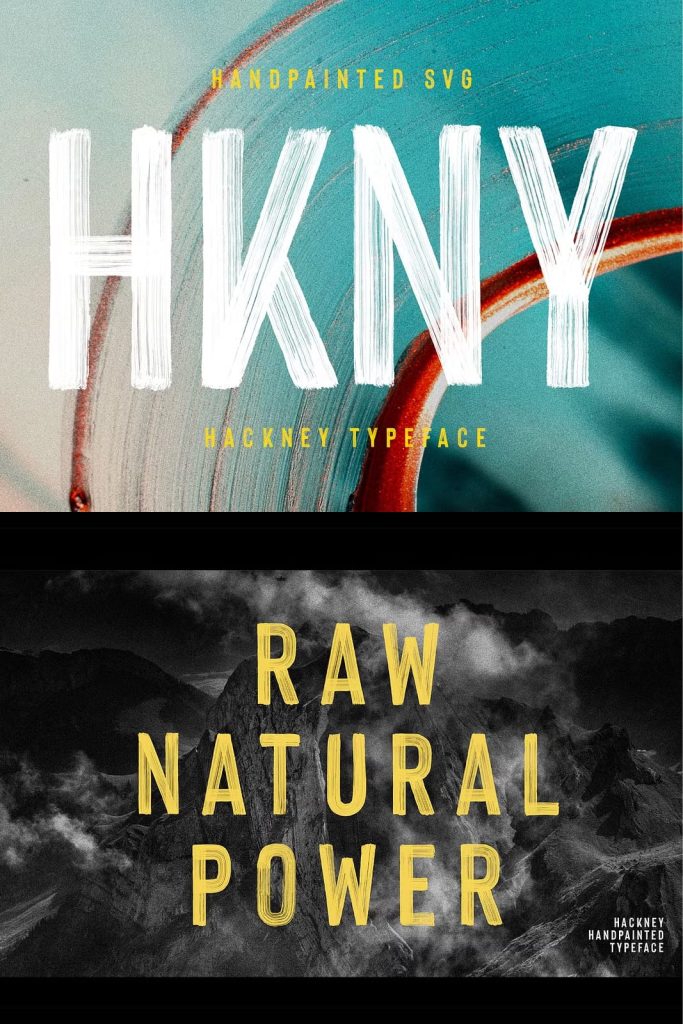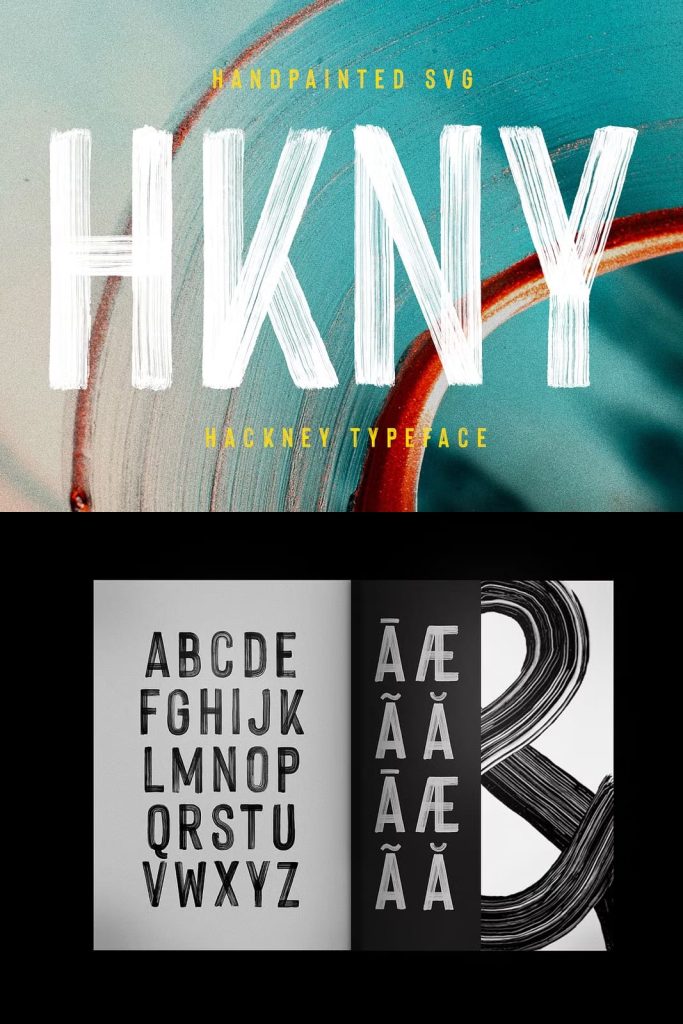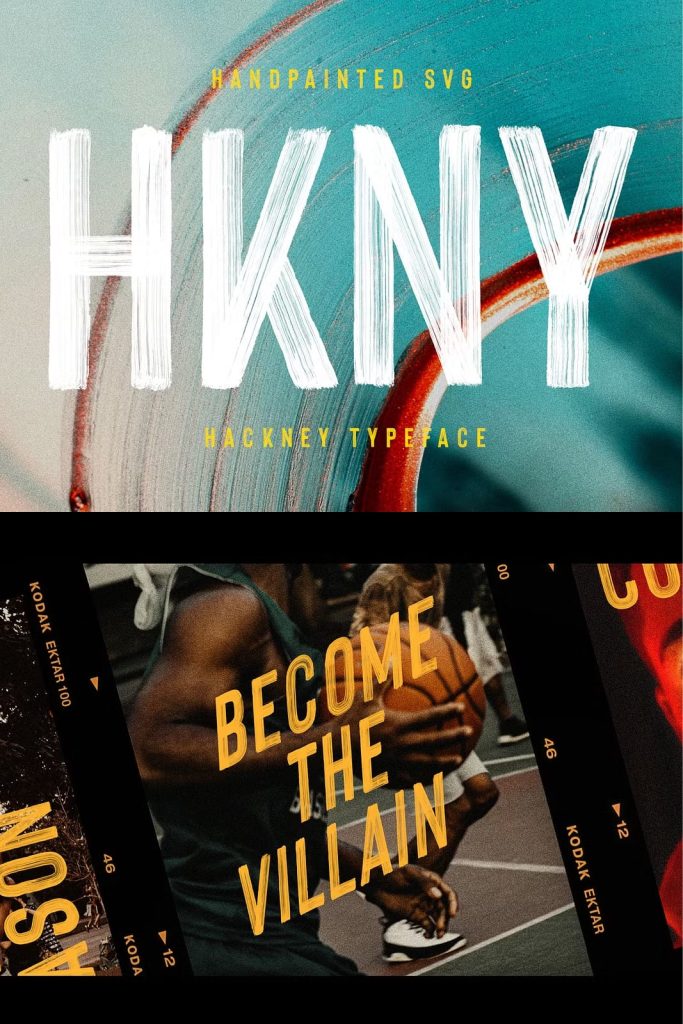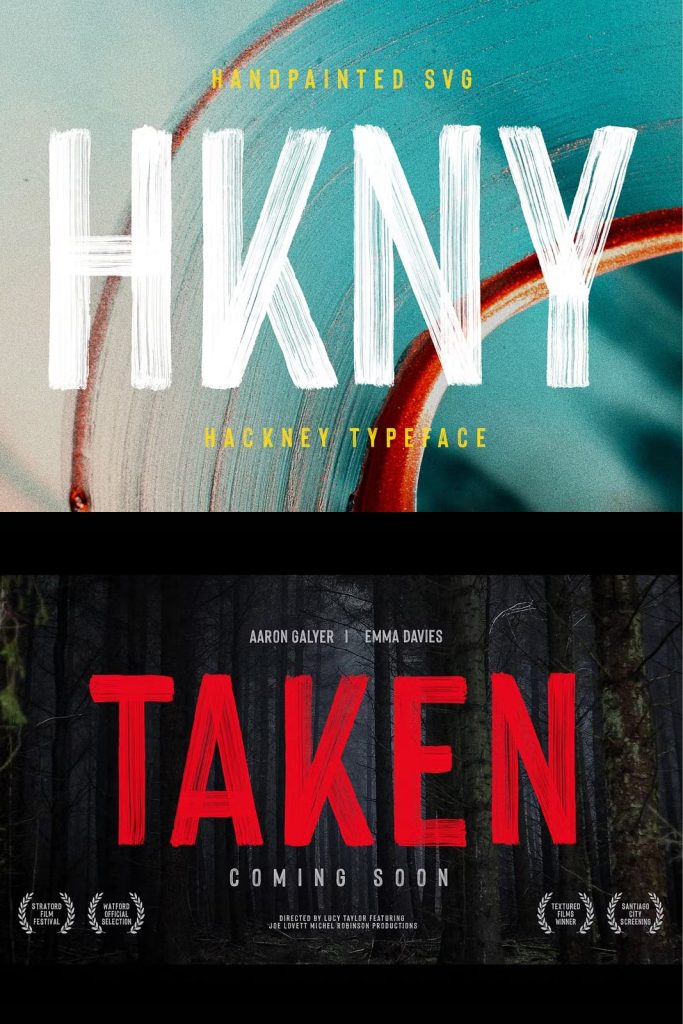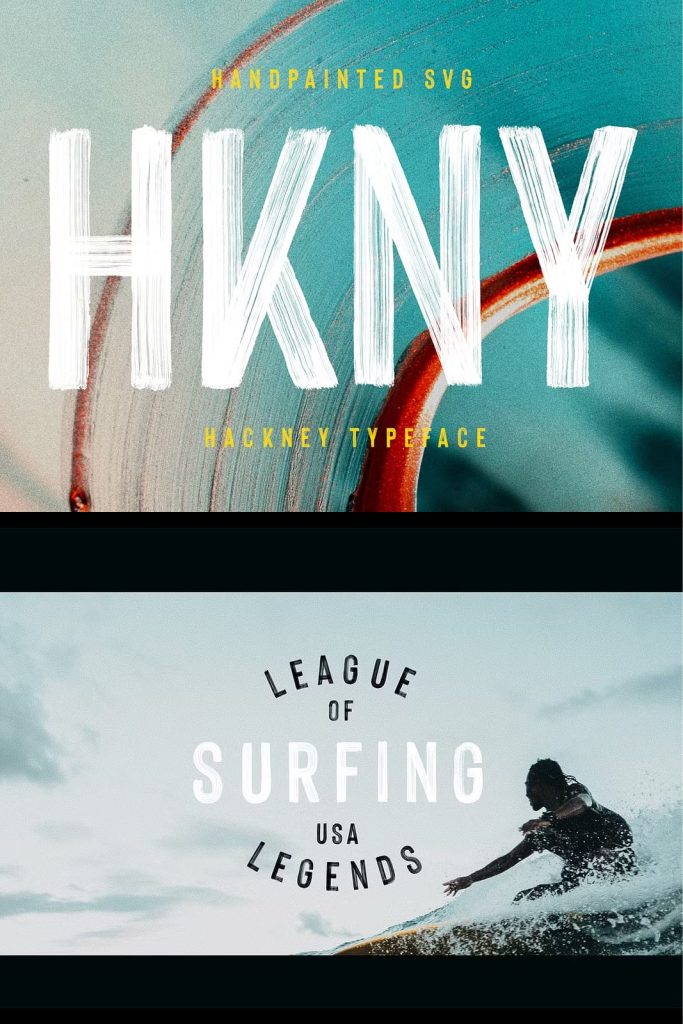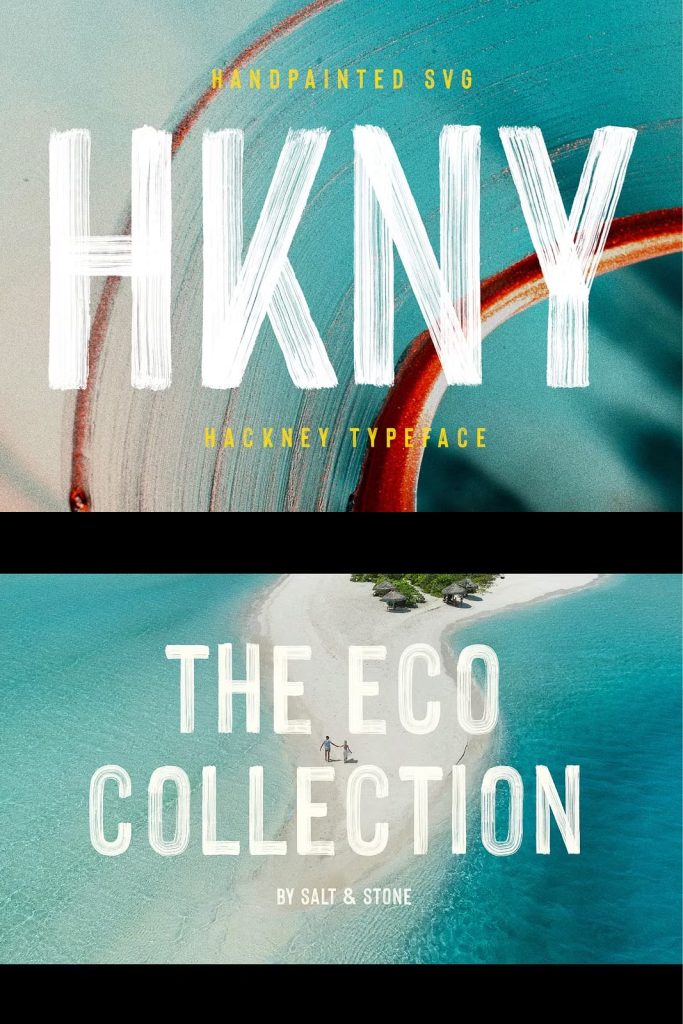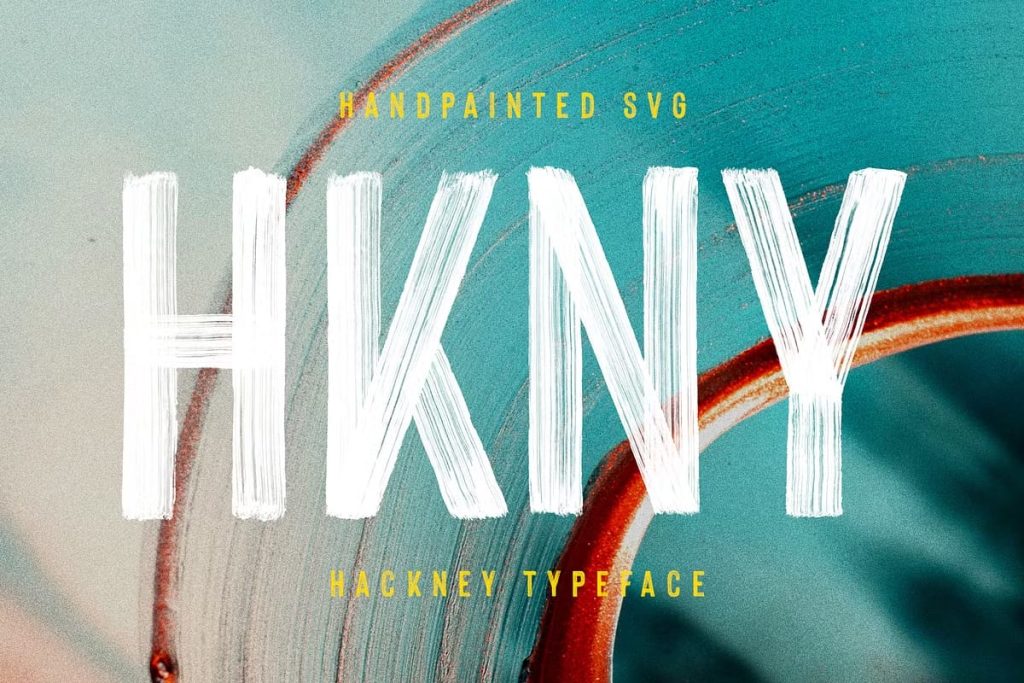
Hackney SVG – Bold Hand-painted FontdezzignerJuly 17, 2024Fonts Hackney is entirely hand-painted sans serif. A raw, bold, condensed font, with brushy imperfections and an earthy realism. Download